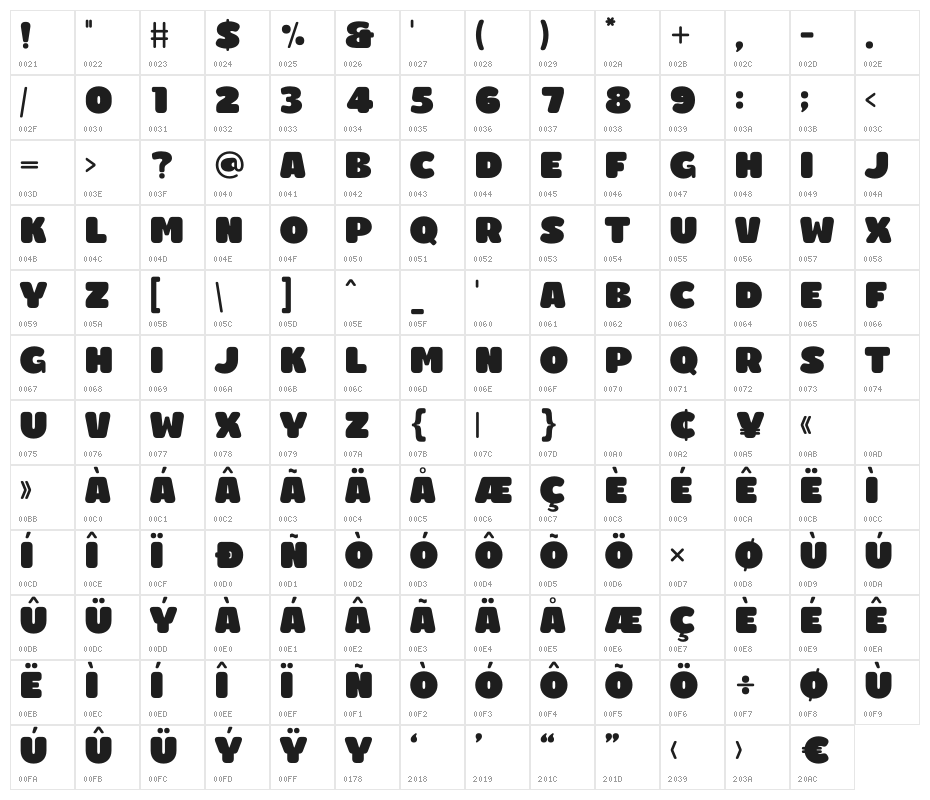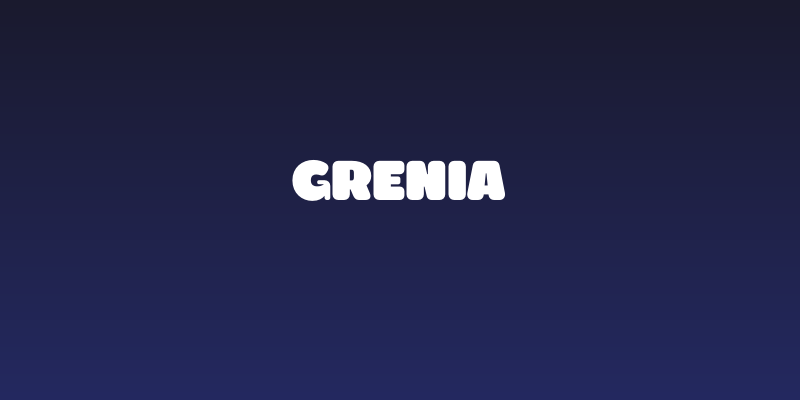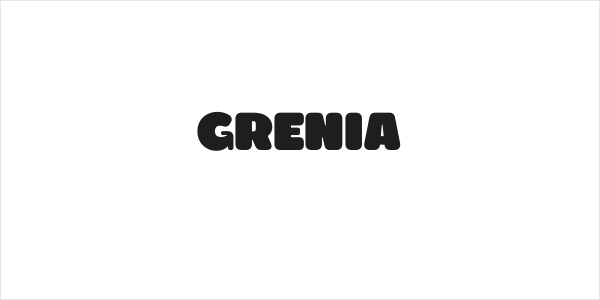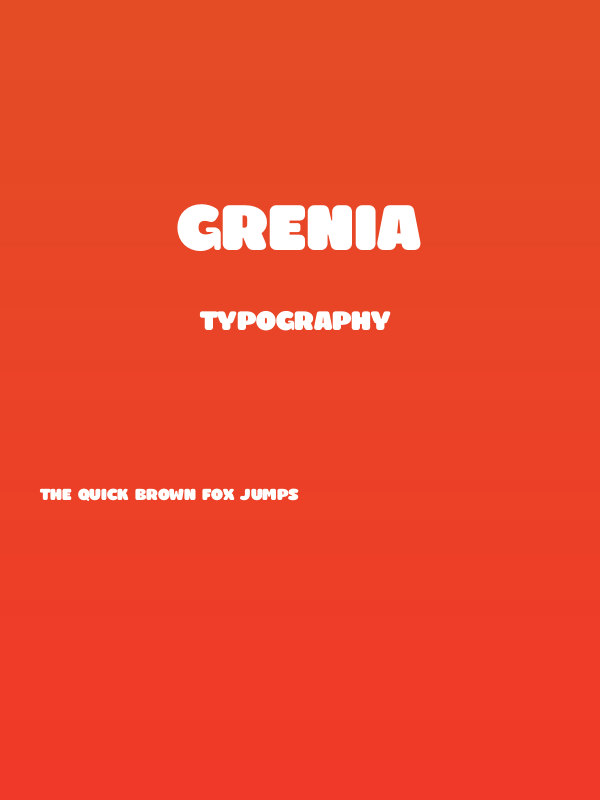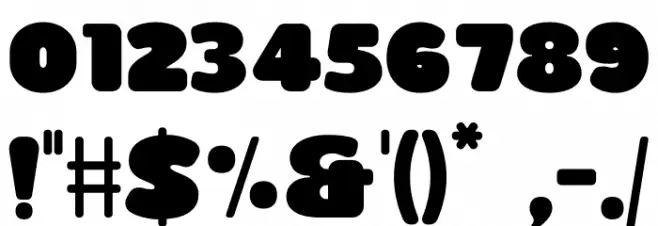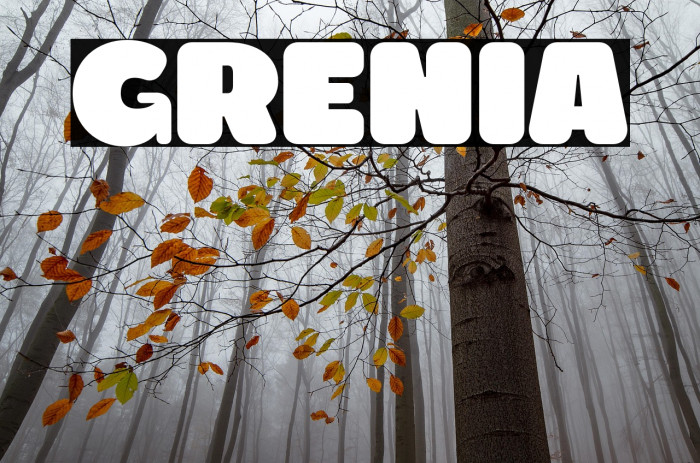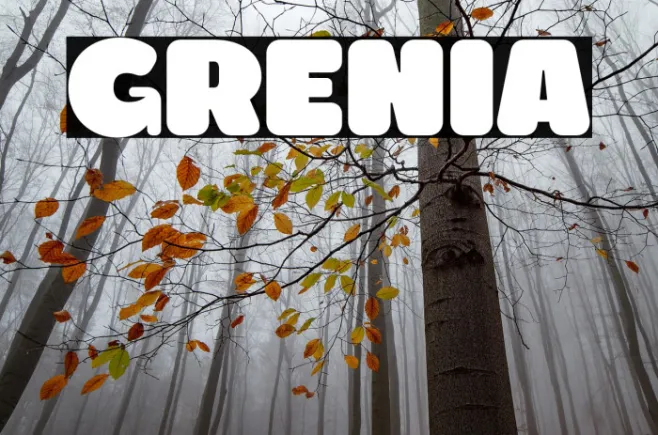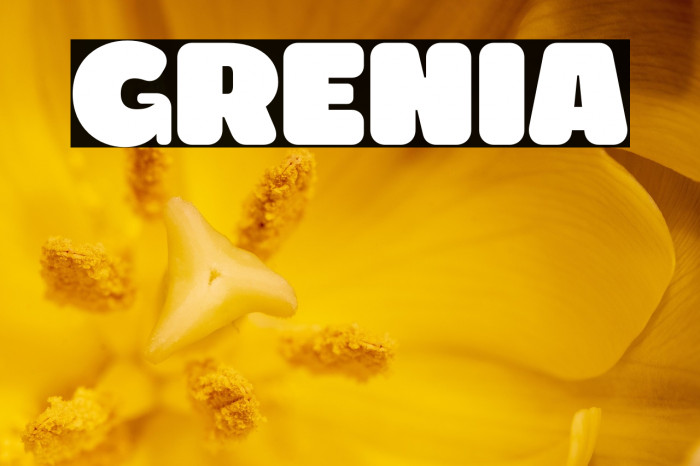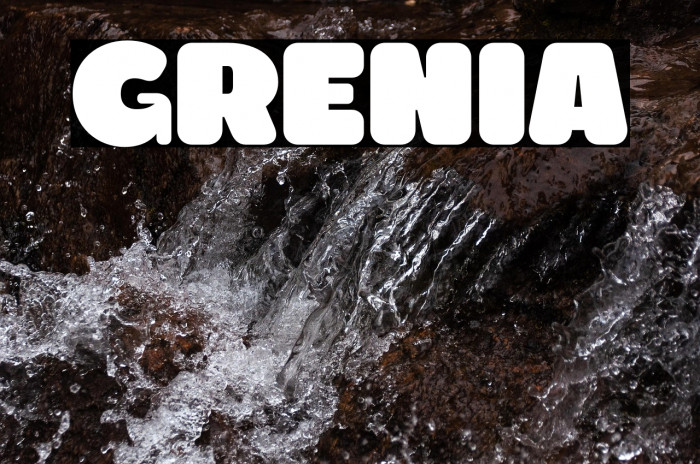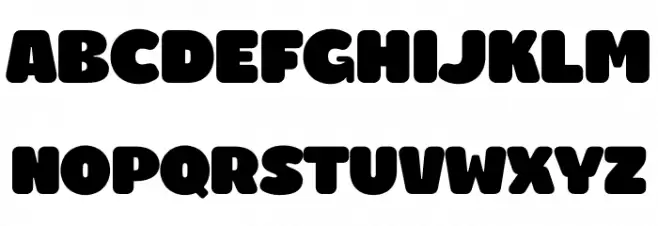
Grenia Font
Grenia Description
This font features bold, rounded characters with a playful and robust appearance. The letters are uniformly thick, creating a strong visual impact. The rounded edges give it a friendly and approachable feel, making it suitable for designs that aim to be inviting and engaging. The numbers and special characters maintain the same boldness and roundness, ensuring consistency across all elements. The font's style is both modern and slightly retro, reminiscent of vintage signage or playful branding.
| Overall Style | Playful, Modern, Retro |
| Proposed Projects | Ideal for children's book covers, playful branding, posters, and signage that requires a friendly and bold statement. |